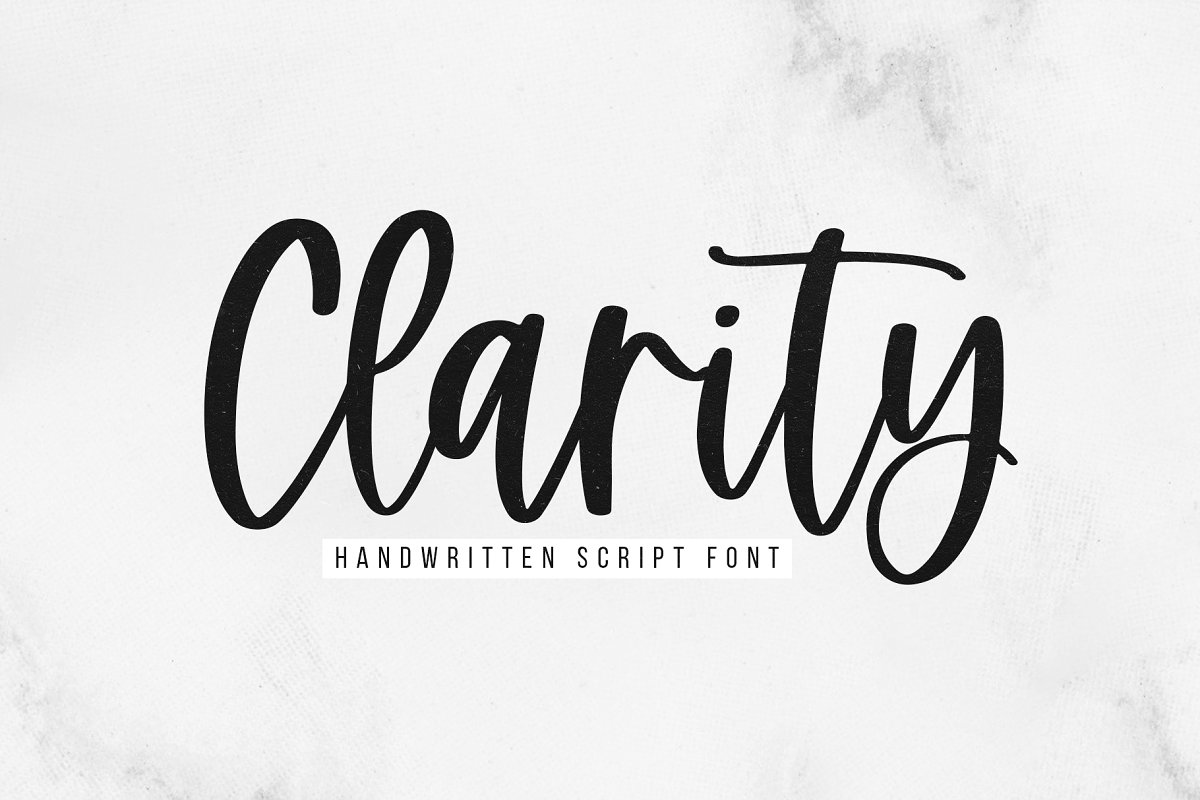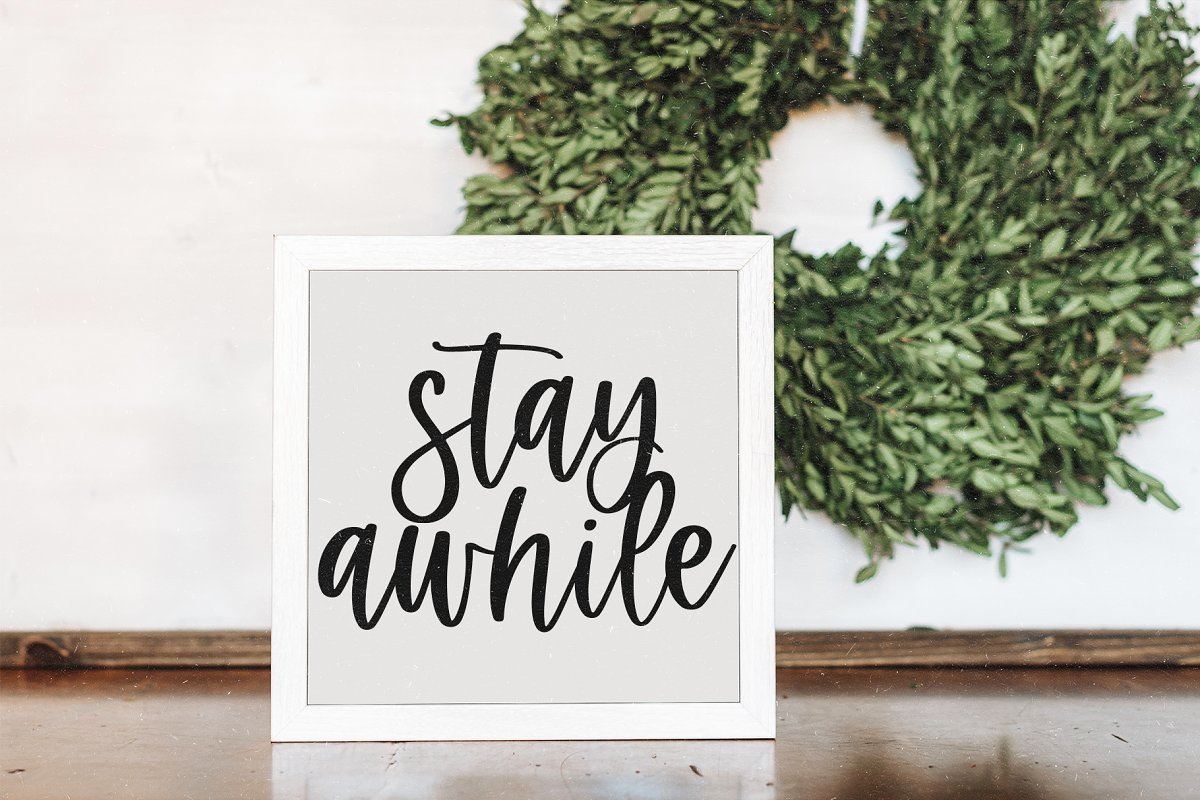
About the Clarity Handwritten Script Font
Grab this font in my modern script font bundle – https://crmrkt, com/ebP2Qg Clarity is a handwritten script font, This font is perfect for branding, logos, farmhouse decor, signs, shirts, svg designs, cricut projects, personalizations, wedding decor, invitations and more!Includes TTF/OTFThank you!